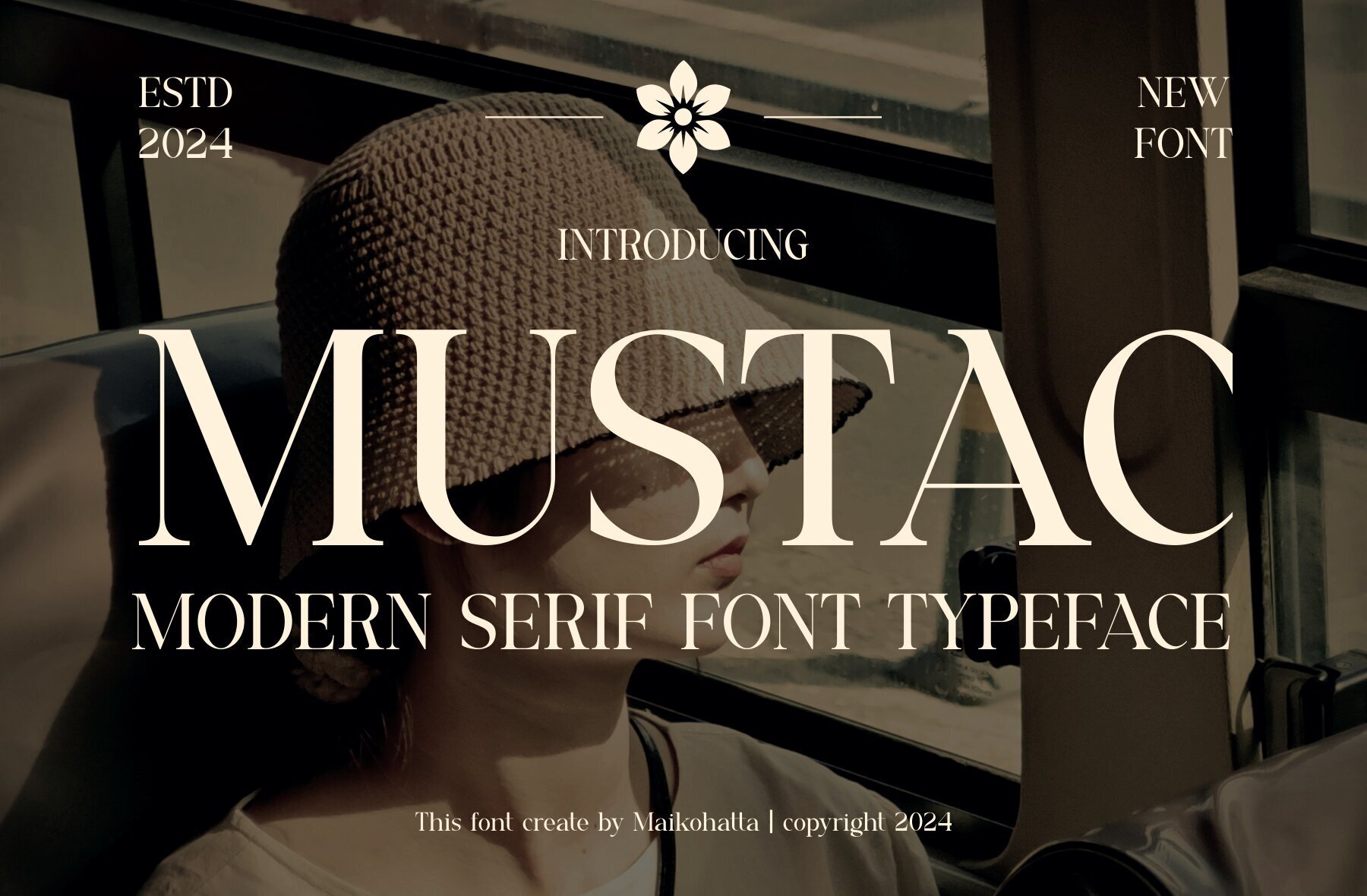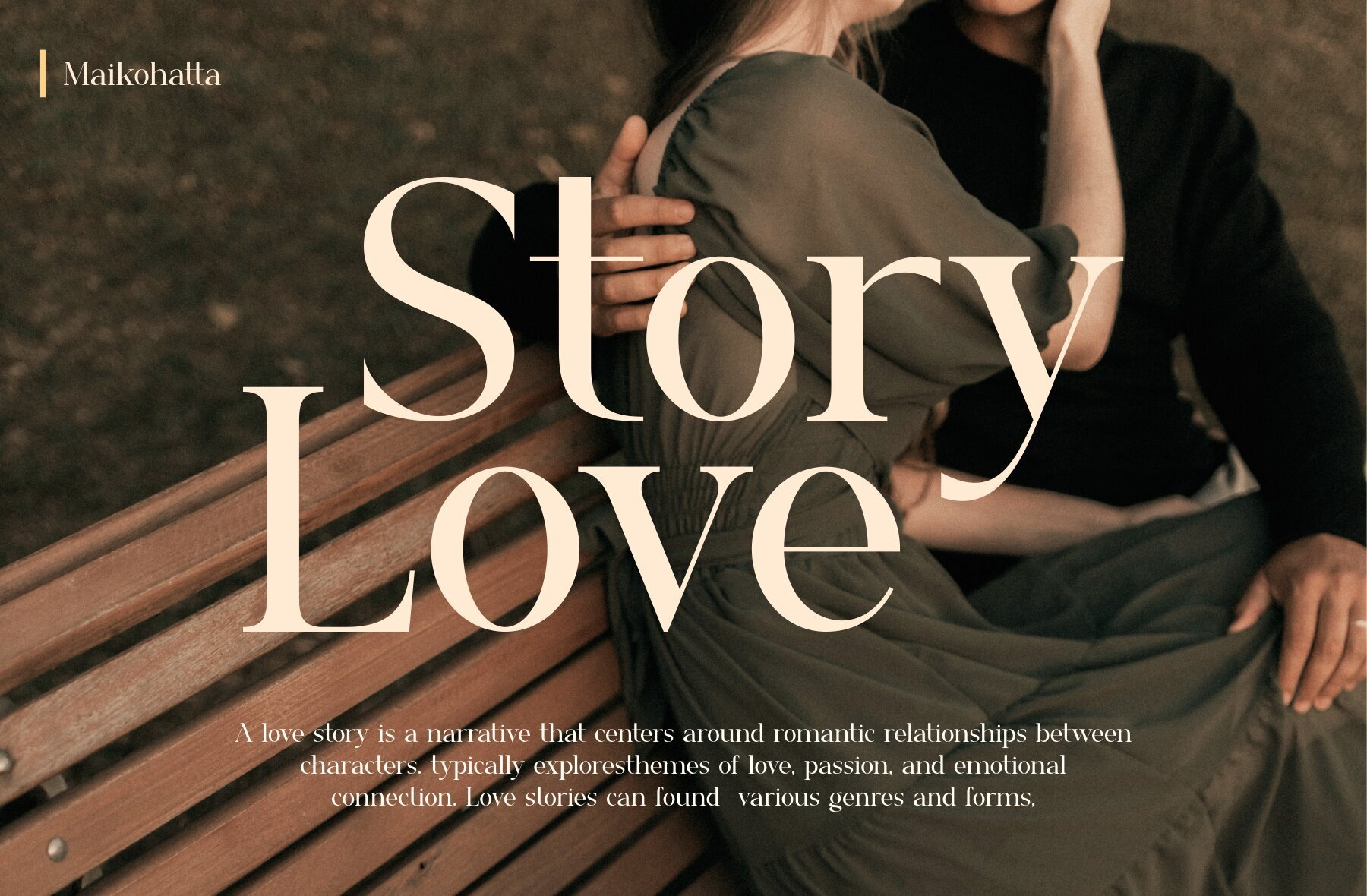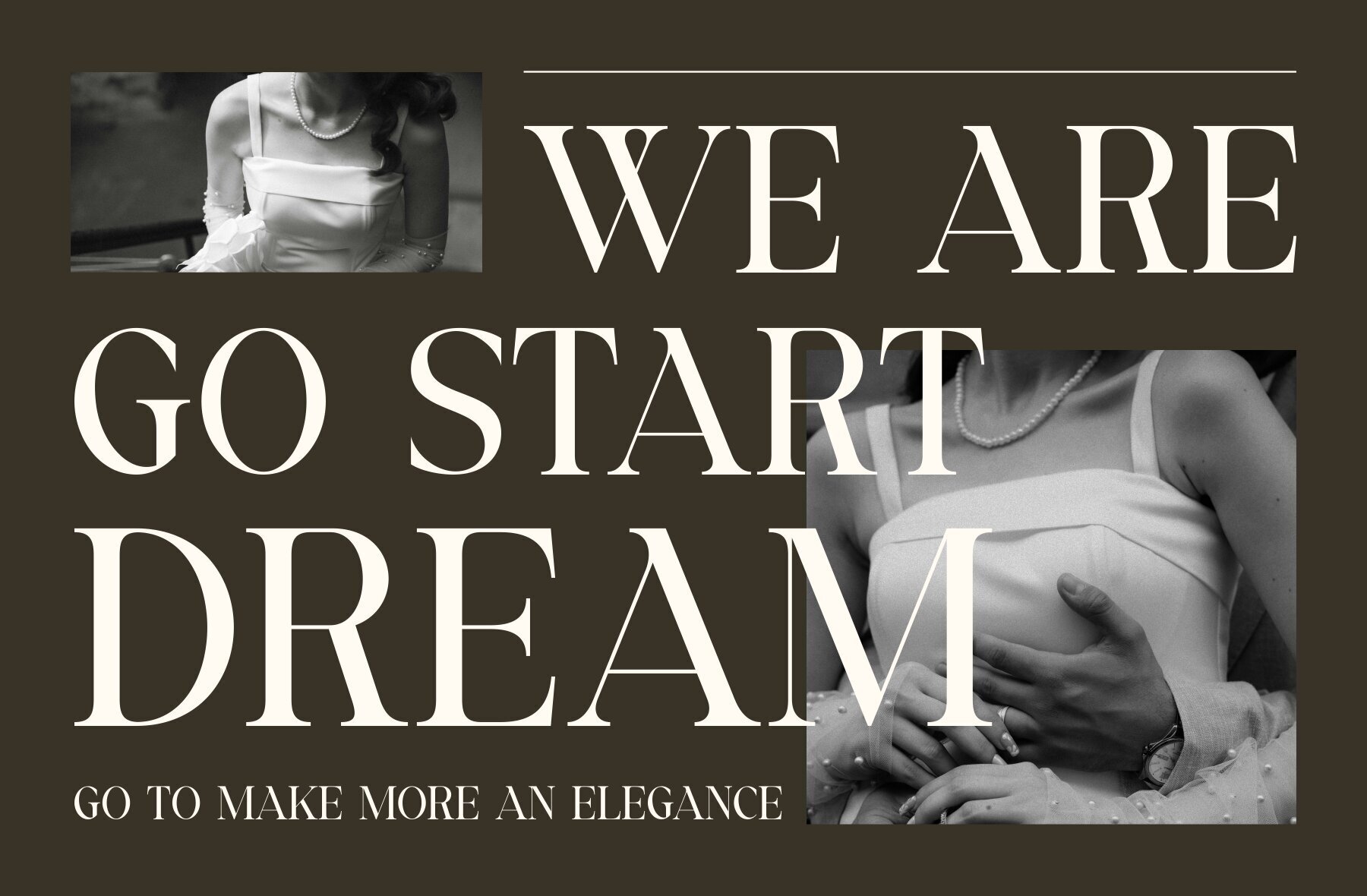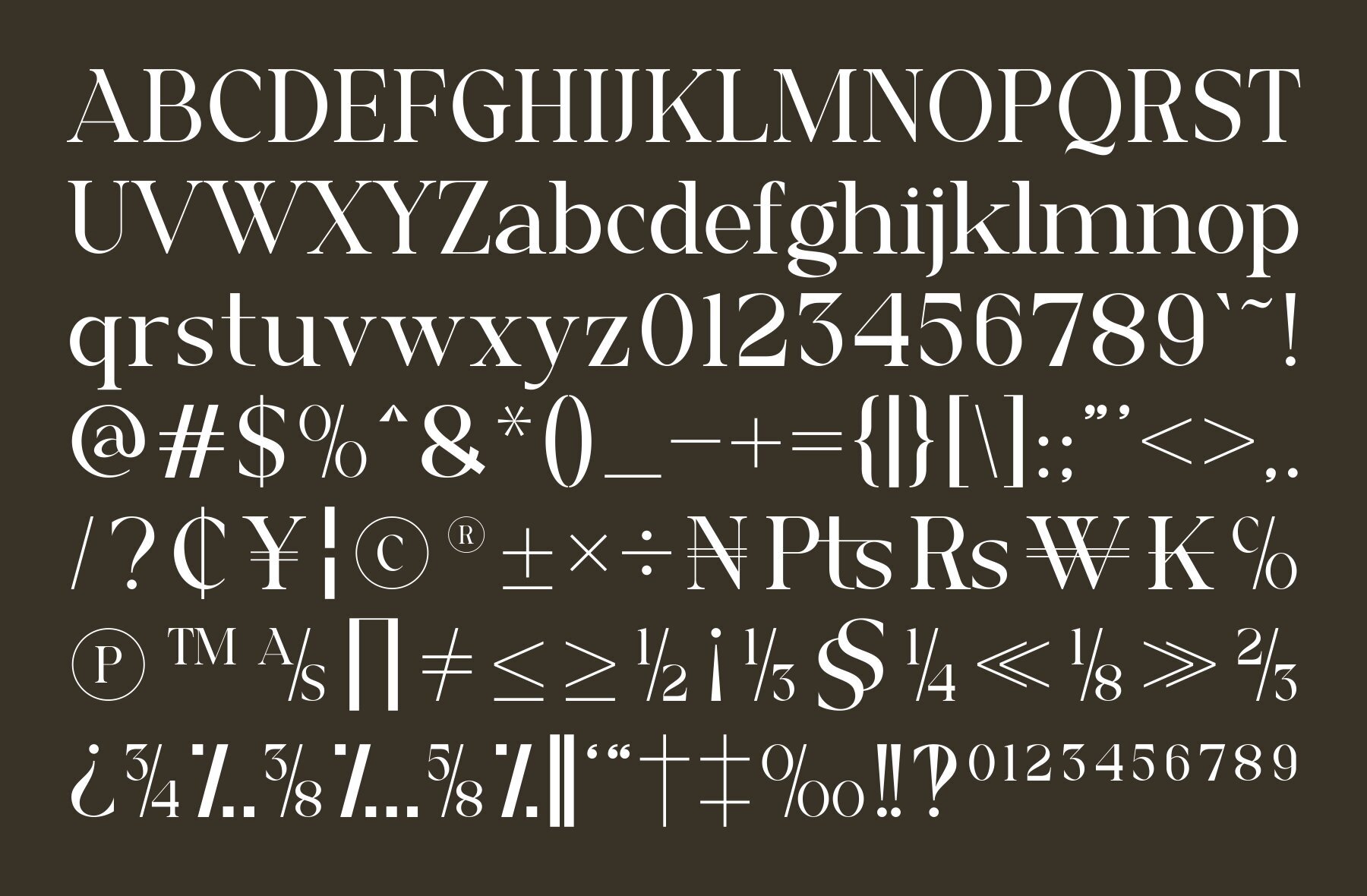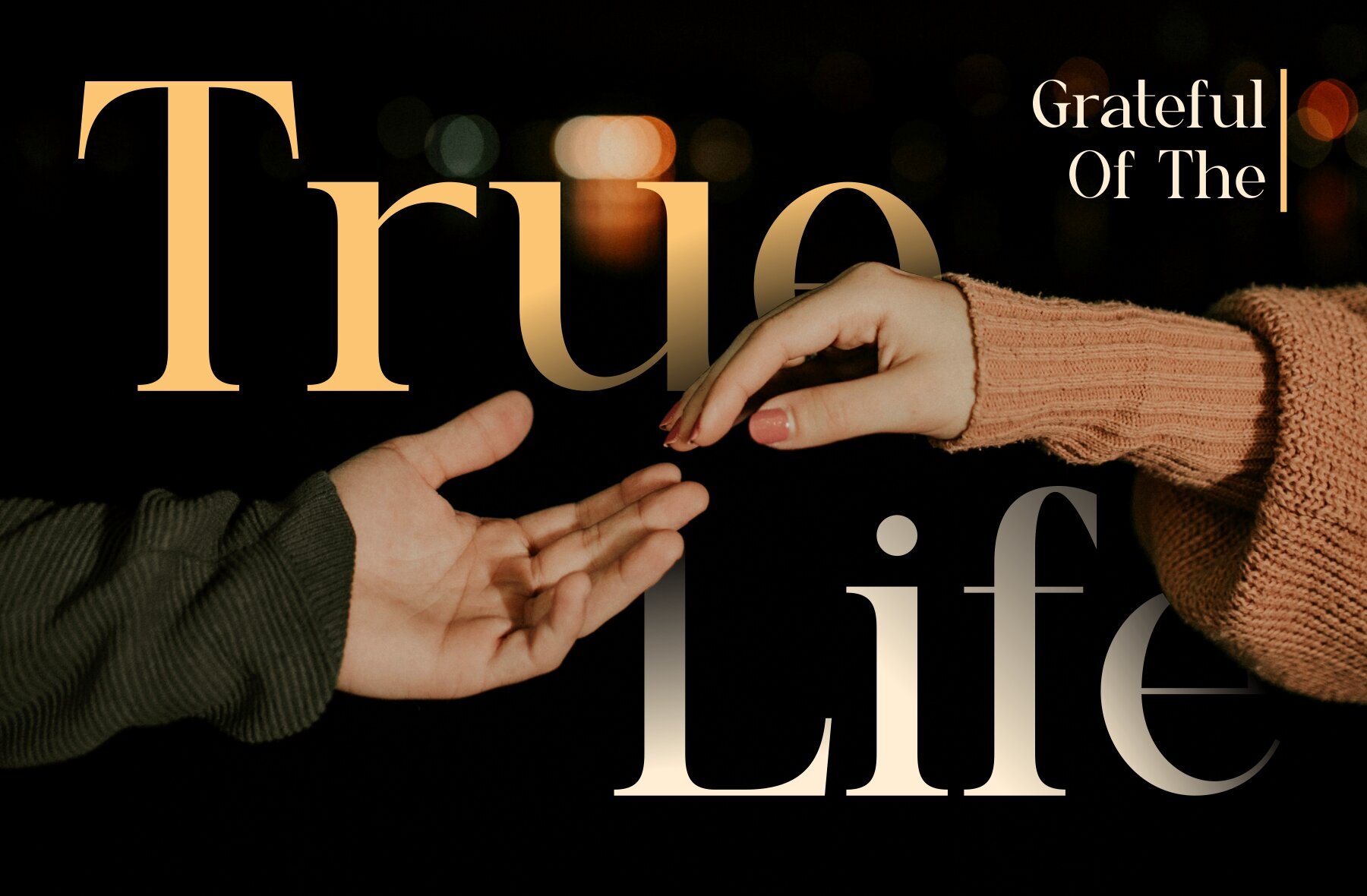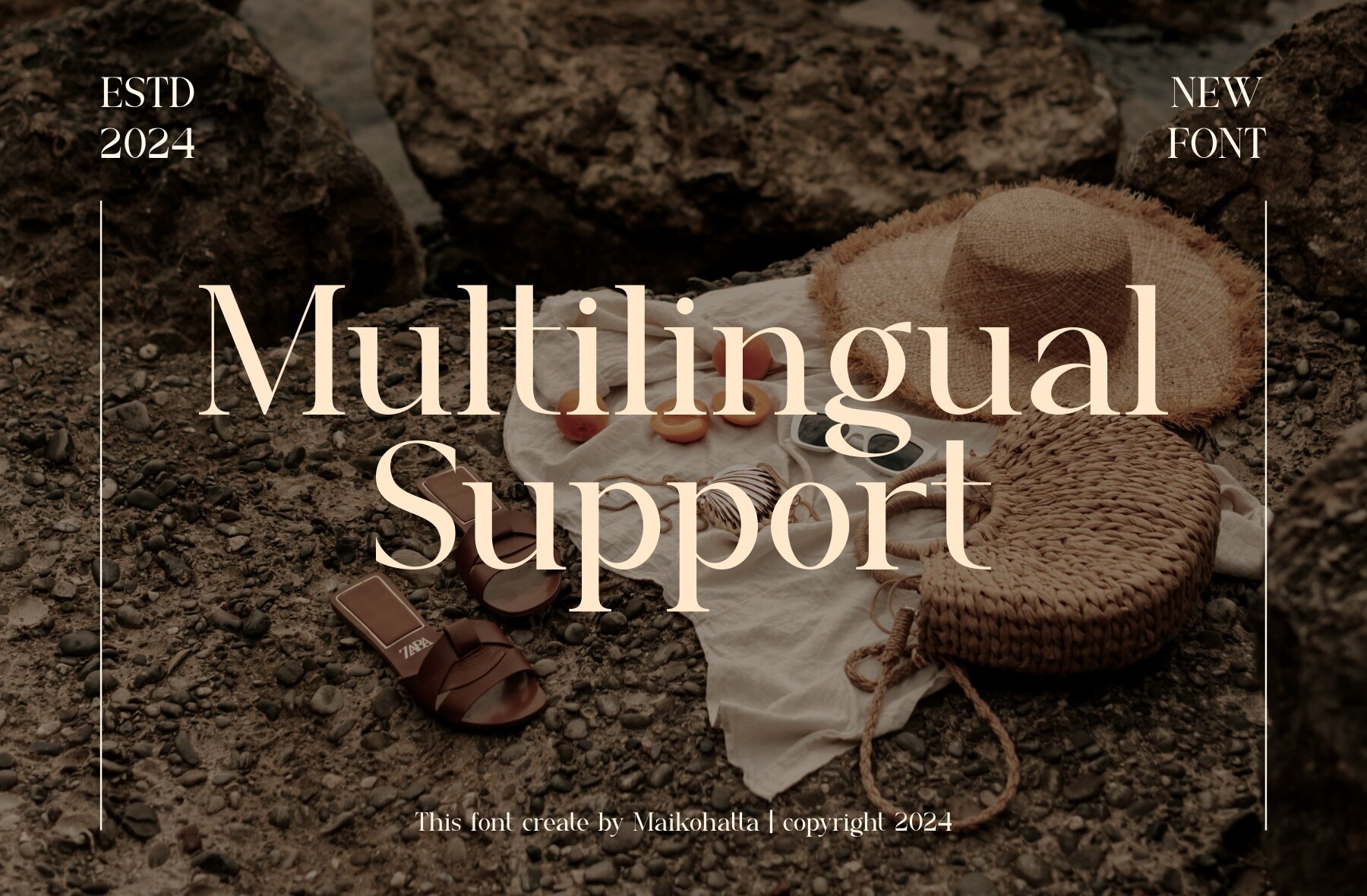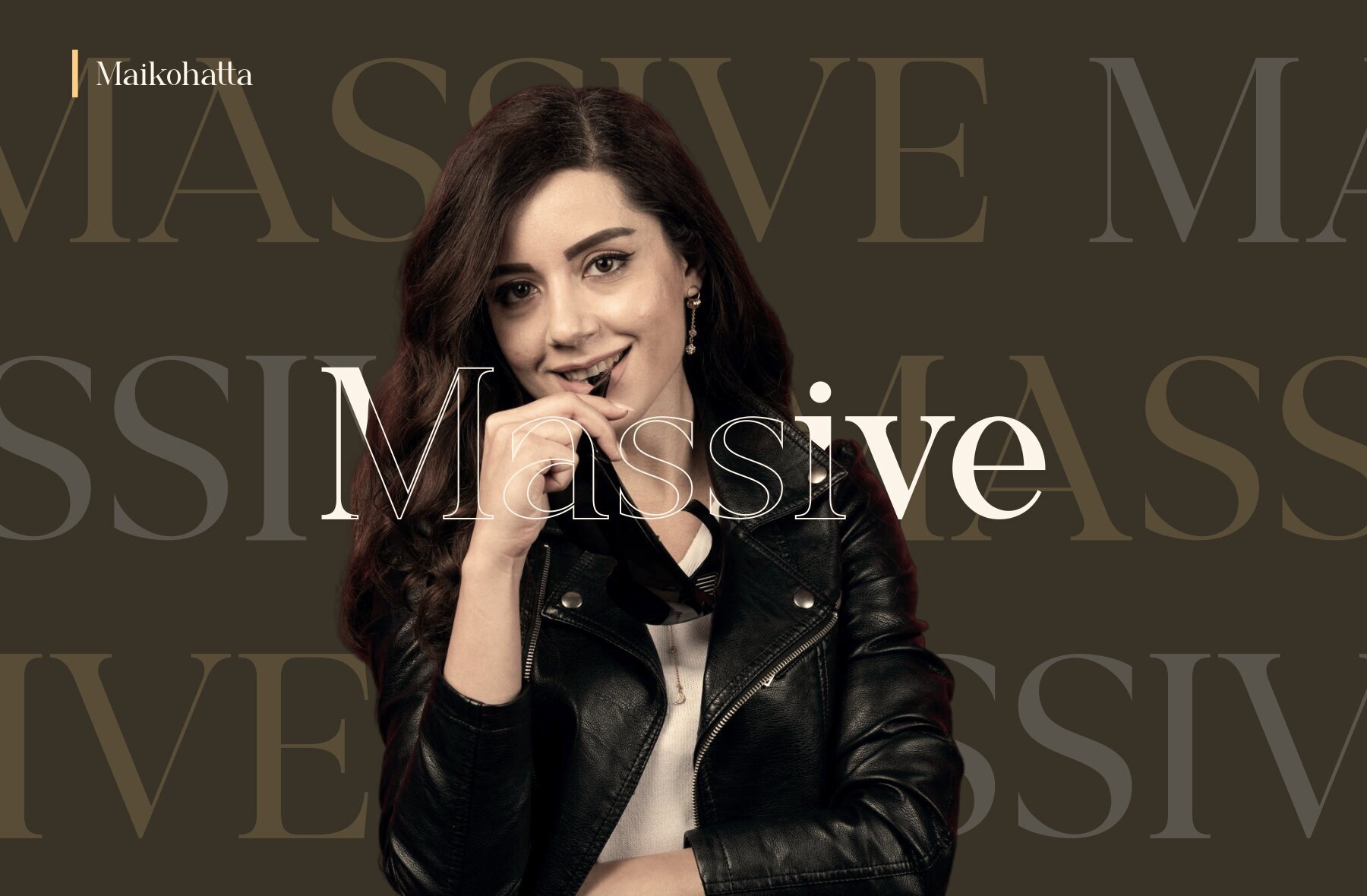
Mustac Font
Mustac Regular
This elegant serif font exudes a classic and sophisticated feel, making it an ideal choice for professional and formal design projects. Perfectly suited for book publishing, editorial work, magazines, and newspapers, this font enhances readability while adding a touch of refinement to any printed or digital material. Its timeless design makes it a versatile choice for body text in academic and corporate settings.